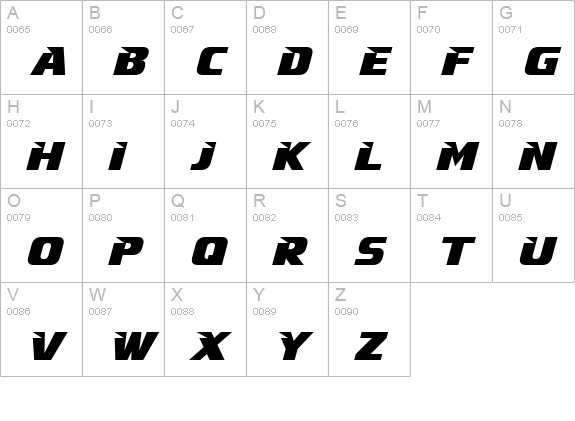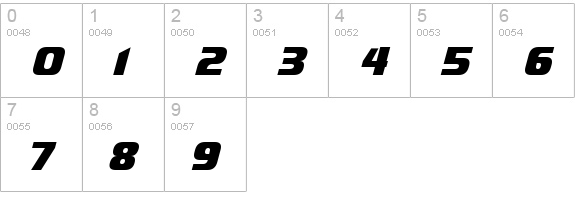
Infinite Justice Font Details
Introducing Infinite Justice, a visually striking font that embodies the essence of elegance and power. With its sleek and modern design, this font is perfect for adding a touch of sophistication to any project. Infinite Justice is not only a font, but a statement. It exudes confidence and strength, making it an ideal choice for logos, branding materials, and headlines. Its clean lines and bold strokes demand attention, ensuring that your message will be noticed. But what sets Infinite Justice apart from other fonts? It's the fact that it is free. That's right, this exceptional font is freely available to download at FontsMarket.com. We believe that great design should be accessible to all, and with Infinite Justice, you can take your creativity to new heights without breaking the bank. Whether you're a seasoned designer or a novice just starting out, Infinite Justice is a versatile tool that will elevate your work to the next level. With its wide range of characters and glyphs, you have the freedom to create unique and captivating designs that reflect your individual style. So why wait? Embrace the power of Infinite Justice and unleash your creativity today. Download this incredible font for free at FontsMarket.com and embark on a journey of design excellence.